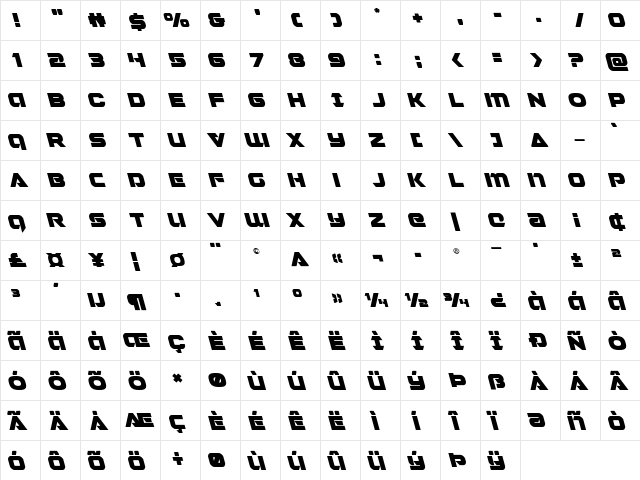
Jeebra Leftalic Italic
Design Context for Jeebra Leftalic Typeface
Jeebra Leftalic takes a measured approach to typography — its balanced proportions and neutral character make it a reliable workhorse for both digital and print work. Its italic angle brings a sense of urgency and motion to the letterforms.
Pro Tip: Try Jeebra Leftalic for annotation and caption copy alongside an upright companion — the contrast in angle creates a dynamic but ordered typographic system.